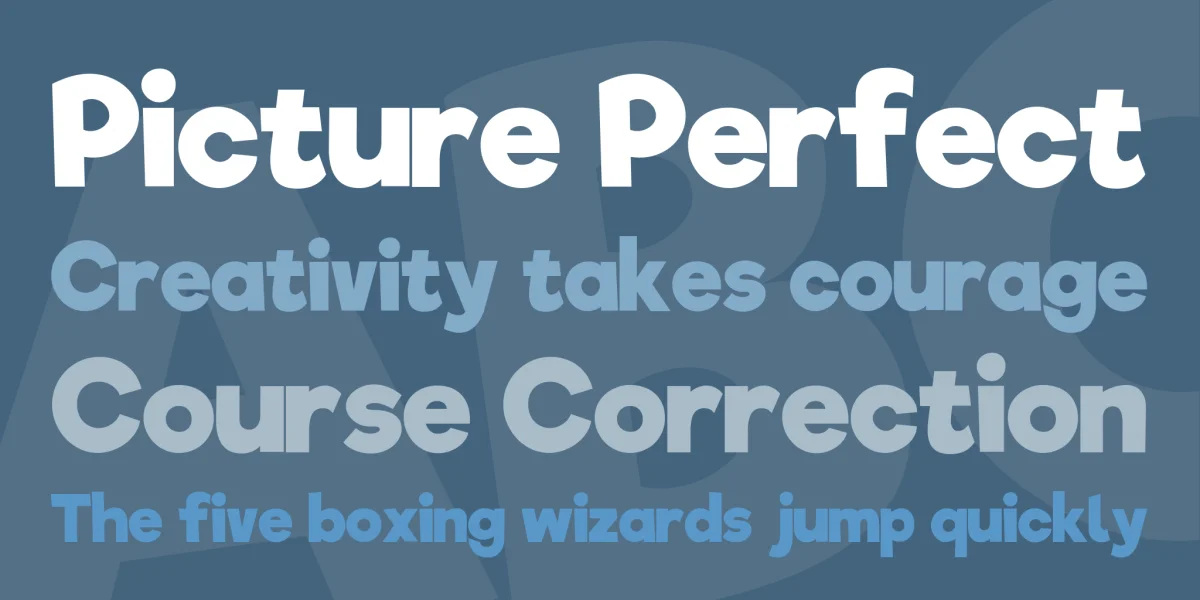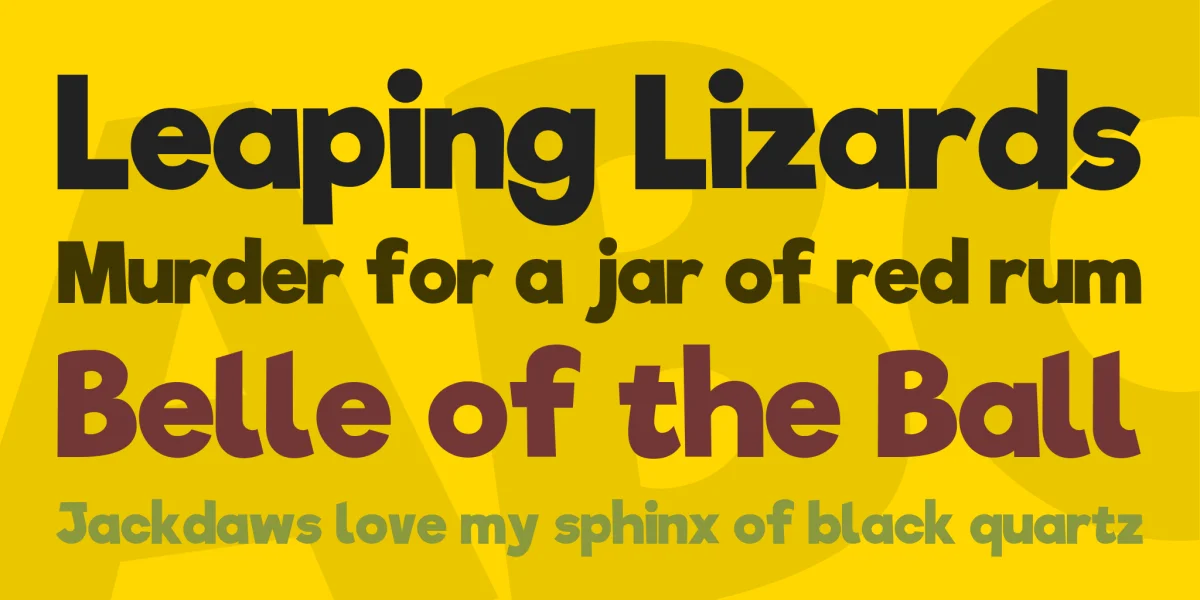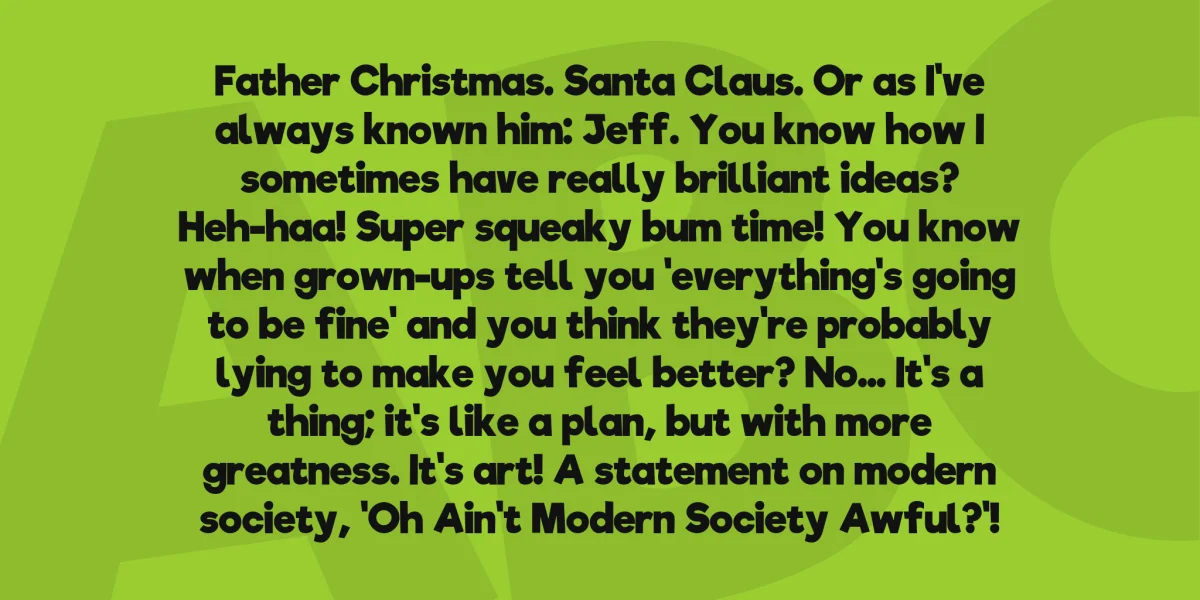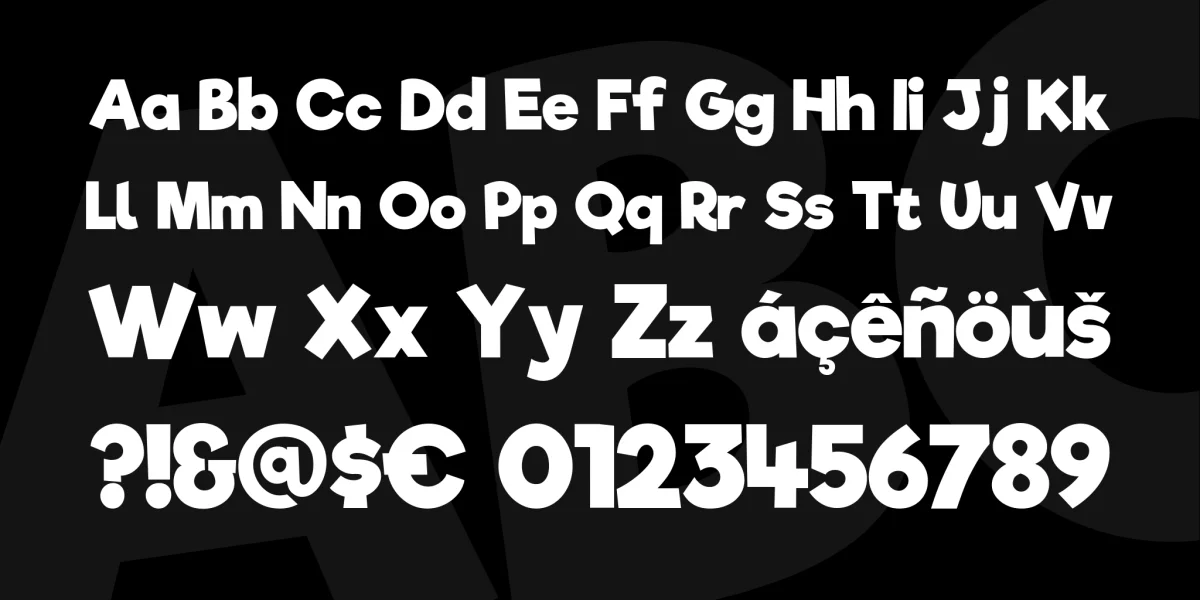
Riffic Free Bold is part of a paid font family of seven faces, best utilised for where a sense of fun or adventure is needed. Works best big and bold as a display face but can also be used for general body text. Comes with support for Cyrillic and Greek languages and OpenType features such as alternates and fractional numbers.